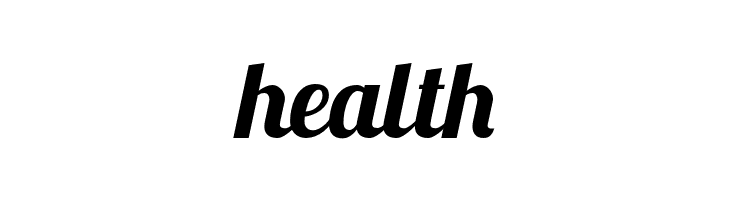
A bold, flowing script font with elegant swashes and a modern yet timeless appeal.
A bold, cursive font with elegant, flowing lines.
A bold, flowing script font with elegant curves and modern flair.
A bold, flowing script font with elegant curves and connected letters.